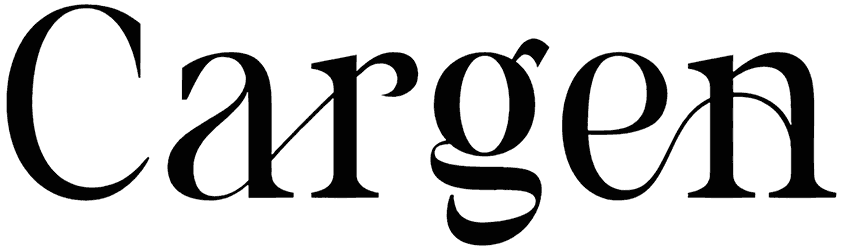
Cargen Font
Feasting the readers with stylish calm characters with today’s assets. The superb quality of this serif font boosts your designs to stand out from the crowd. Go ahead and upload the Cargen font to have artfully detailed main text and titles.